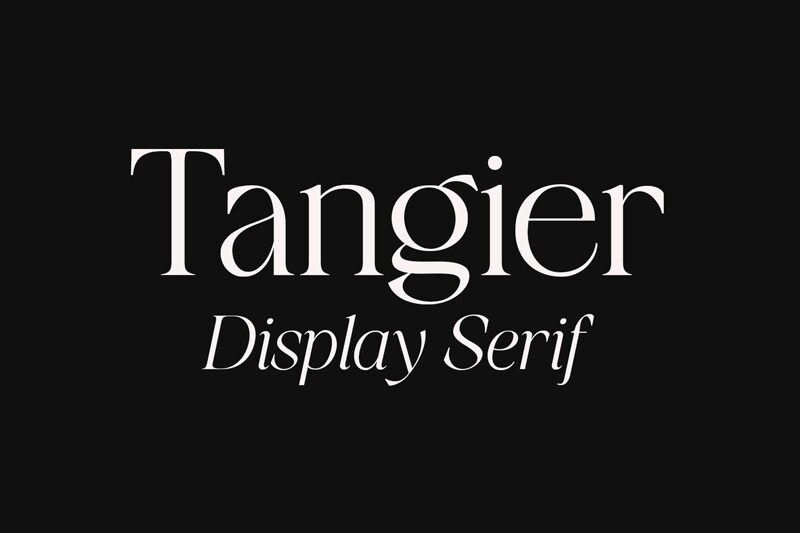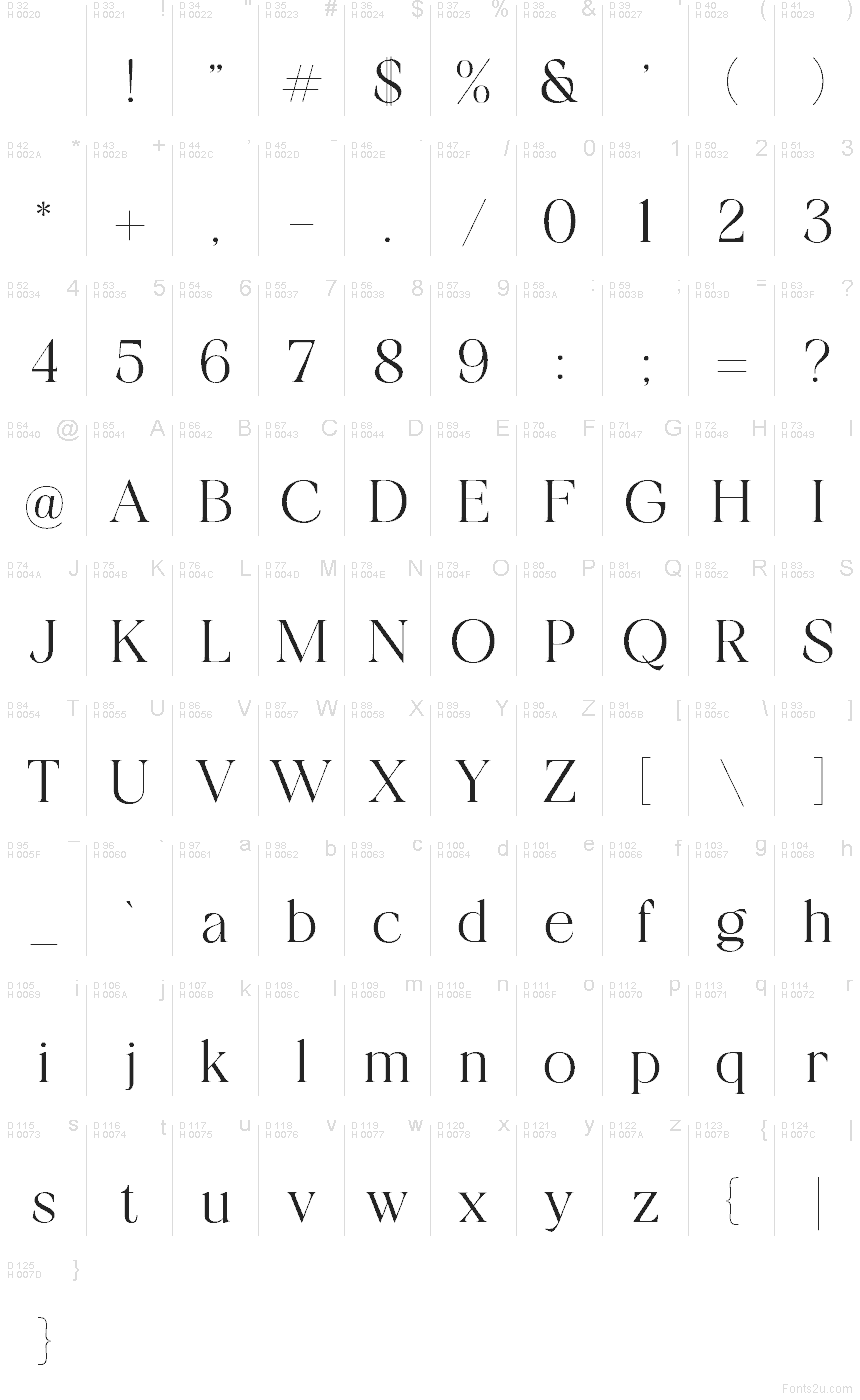
Tangier font by Viswell Studio is a free serif typeface with a distinctly cinematic flair. Sleek verticals taper into whisper-thin strokes, while generous curves give the letters a liquid, almost calligraphic movement. The spacing feels airy yet deliberate, so even a single word set in Tangier looks like a logomark rather than plain text.
Using Tangier, you’ll get a refined voice that shines on branding, book covers, fashion editorials, packaging, magazine titles, and hero banners. This free font thrives at larger sizes where its delicate details can breathe. Pair Tangier with a simple geometric sans for body copy and keep the serif slightly oversized to maintain that elegant, editorial contrast.